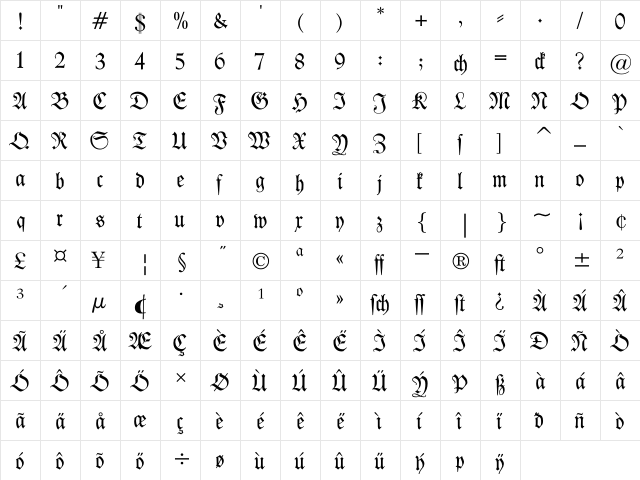
Kleist-Fraktur Regular
| Designer | Dieter Steffmann |
| Copyright | Copyright (c) Typographer Mediengestaltung, 2002. All rights reserved. Kleist-Fraktur geschaffen von Walter Tiemann, 1928. Digitized, hinted and completed by Dieter Steffmann, Kreuztal |
Design Context for Kleist-Fraktur Typeface
Kleist-Fraktur draws on the rich tradition of blackletter calligraphy, with dense, angular strokes that evoke medieval manuscripts and old-world craftsmanship.
A natural fit for music packaging, gothic editorial design, and any project that needs historical weight.
Font Pairing: Pair with a clean neutral sans-serif for body copy to let Kleist-Fraktur's character lead without overwhelming the composition.
Pro Tip: Reserve Kleist-Fraktur for display and logo use — pair it with a clean sans-serif for body copy to prevent the composition from feeling oppressive.